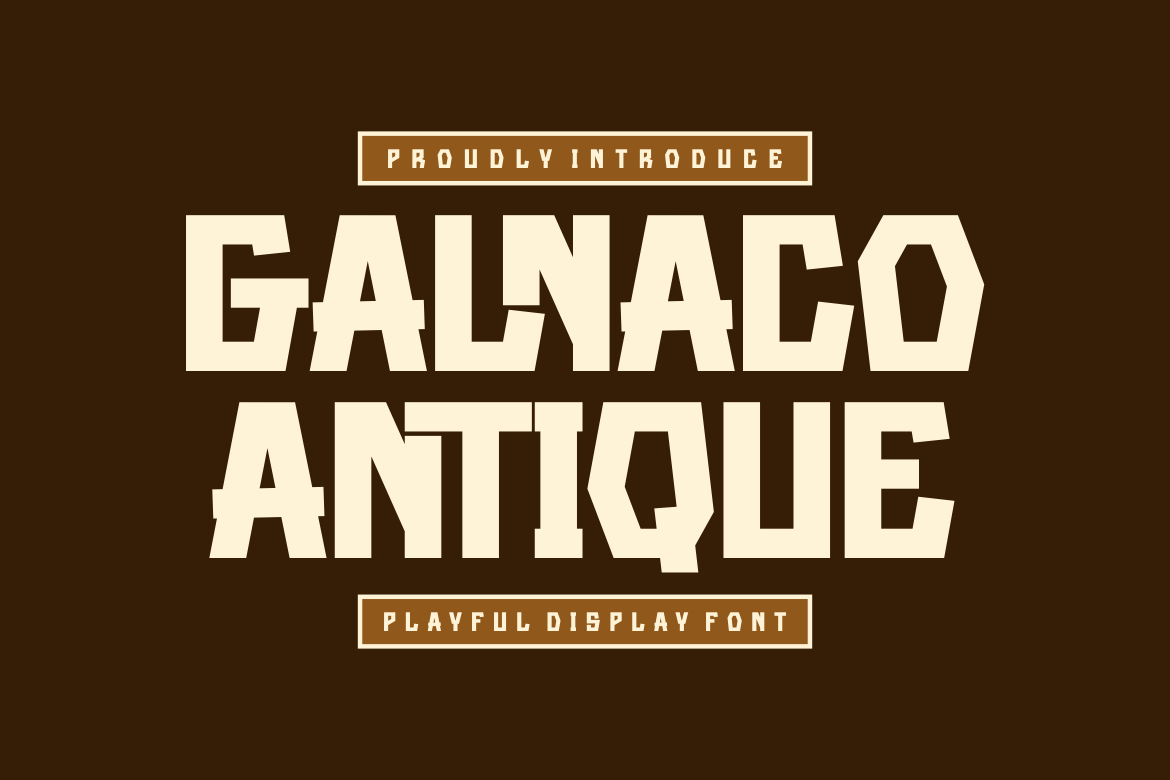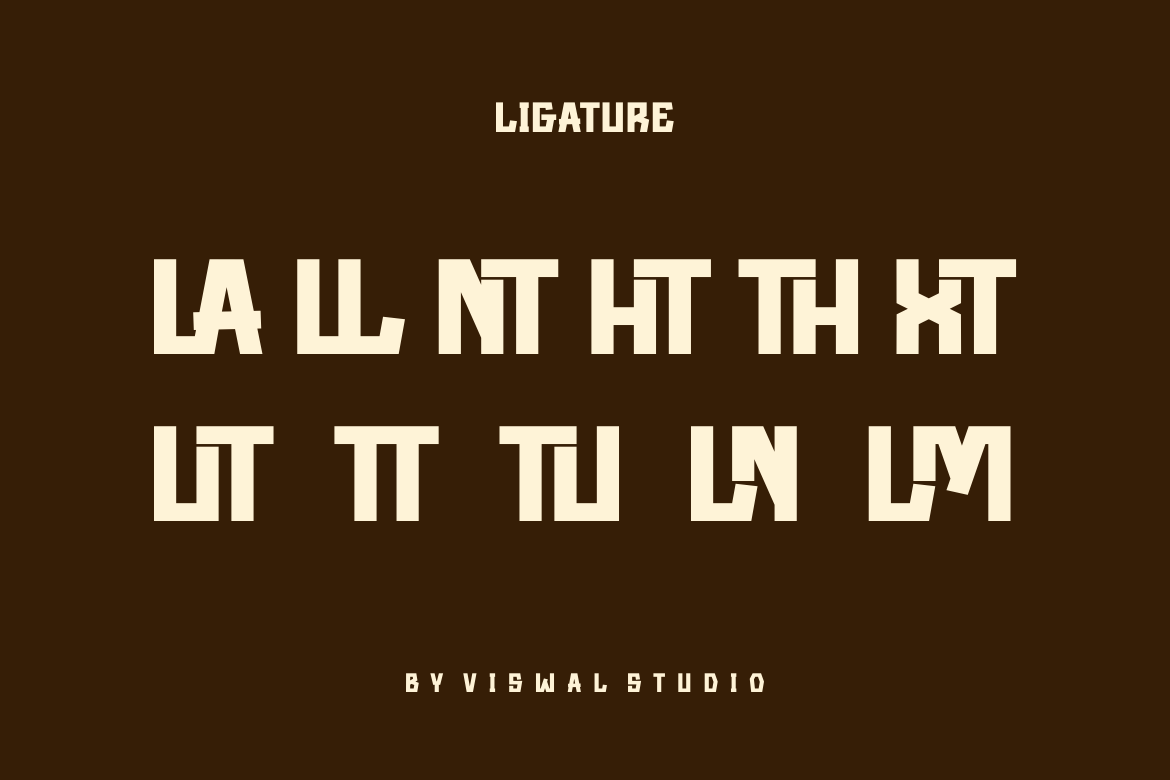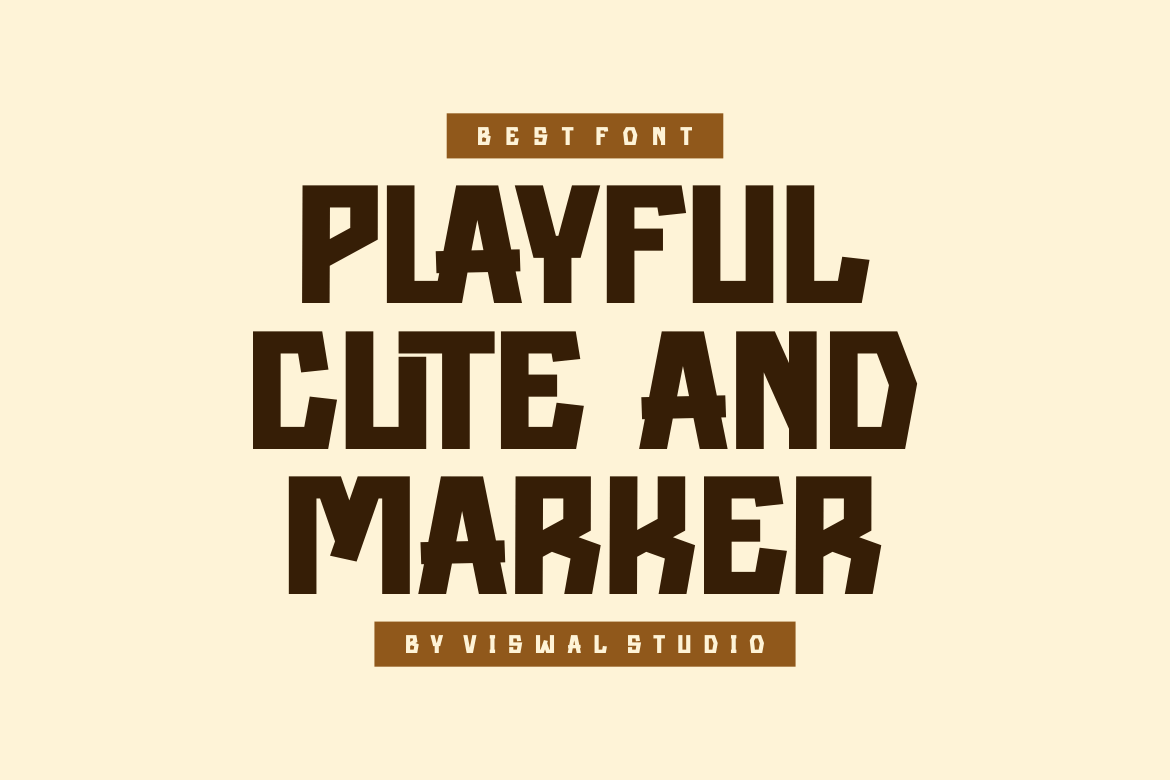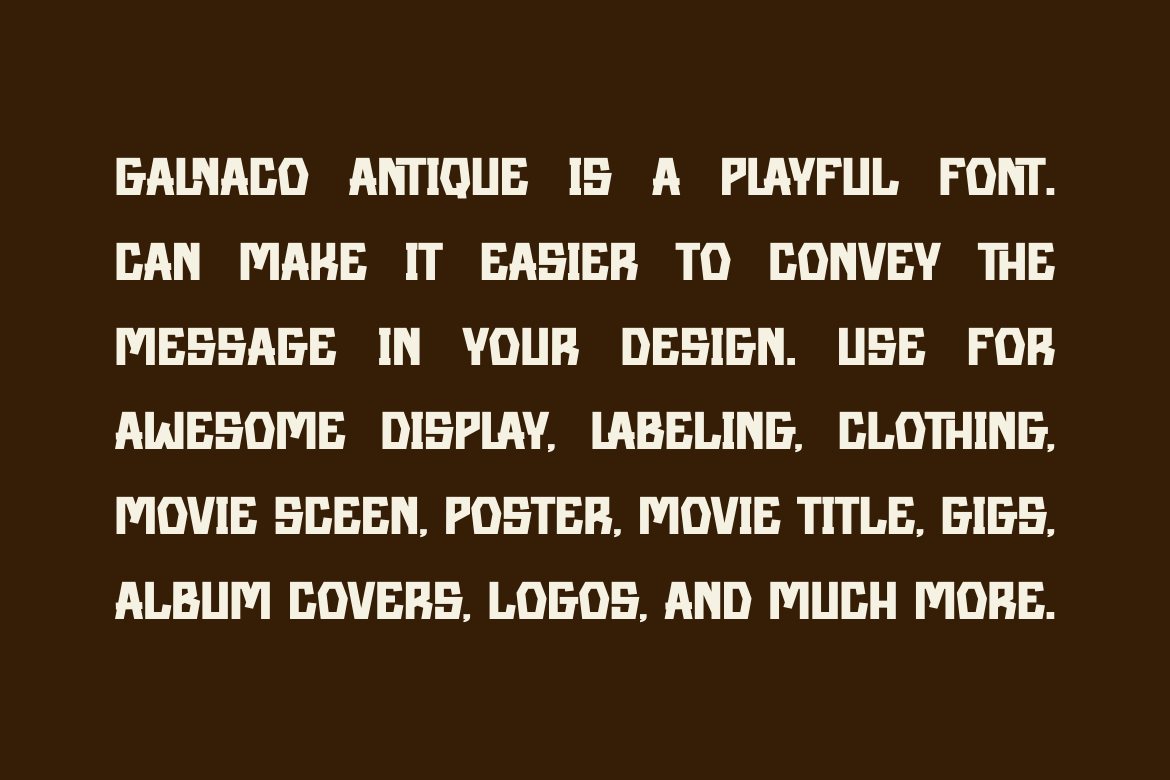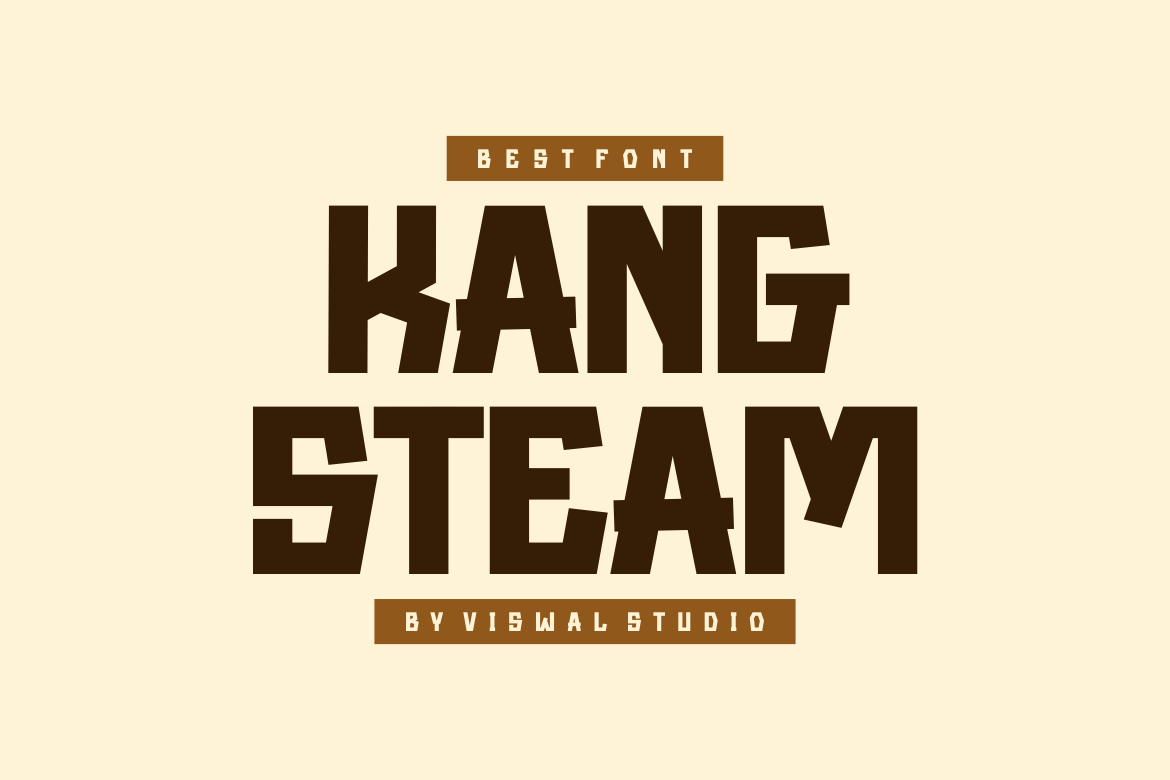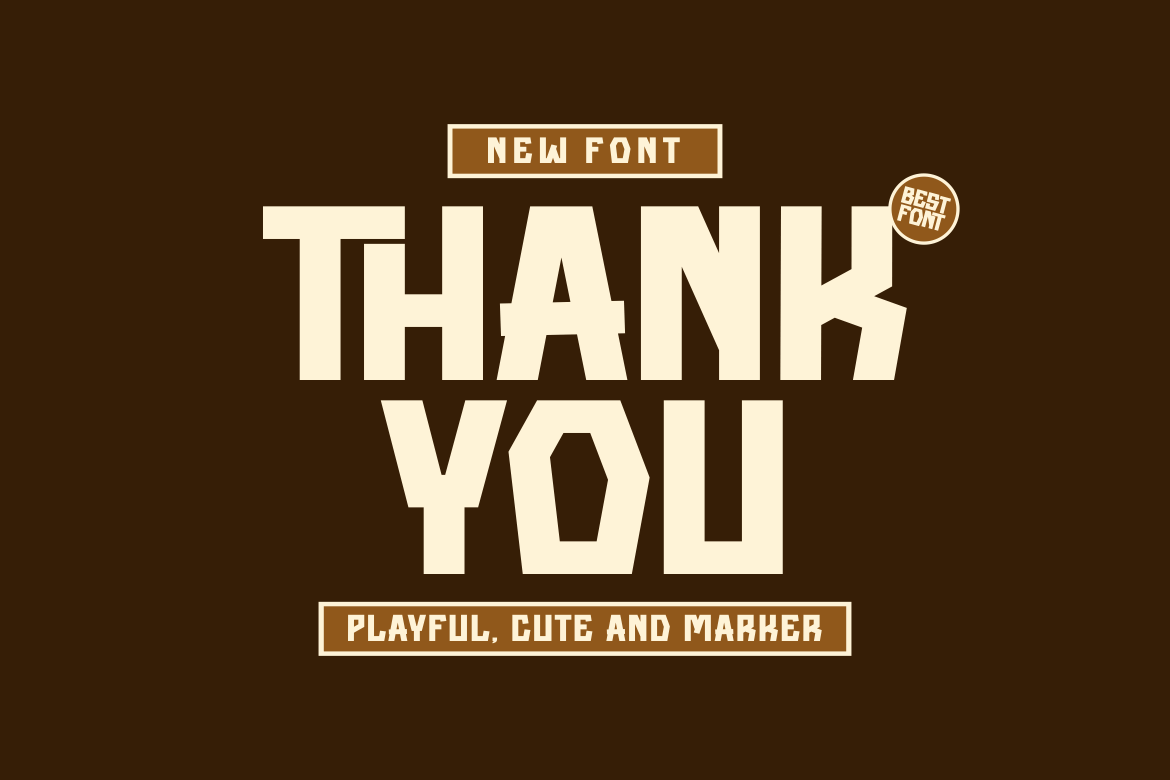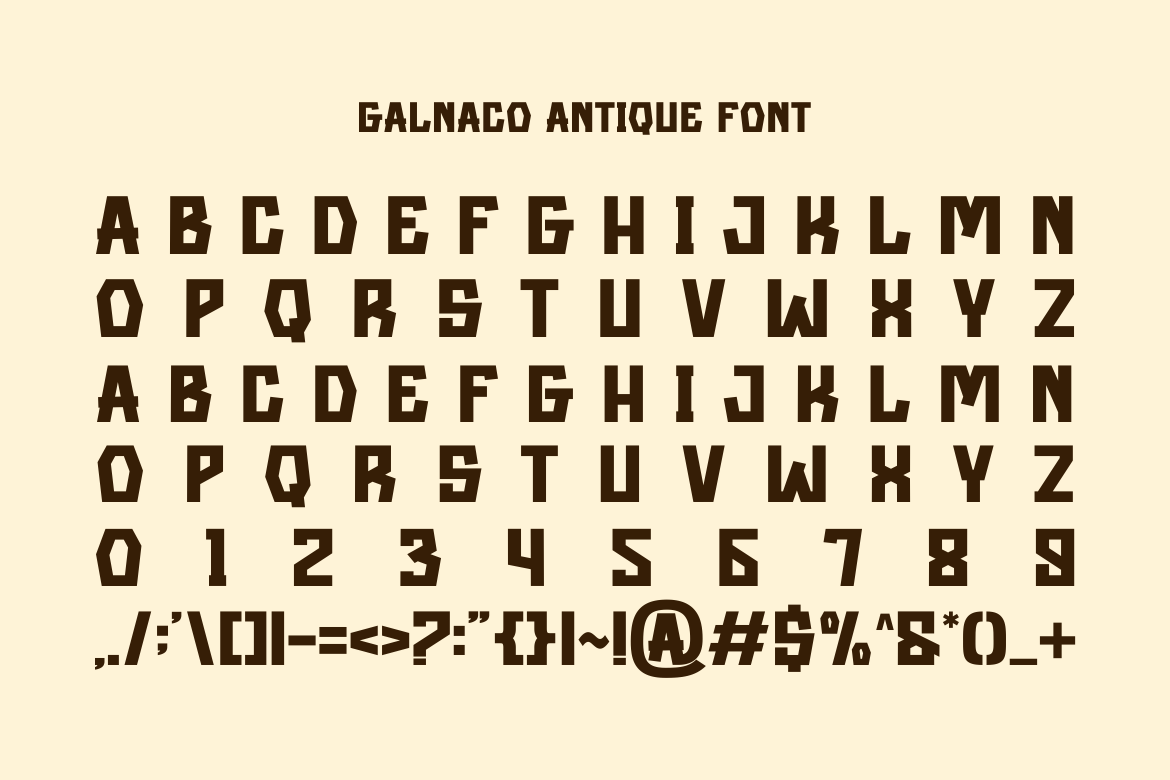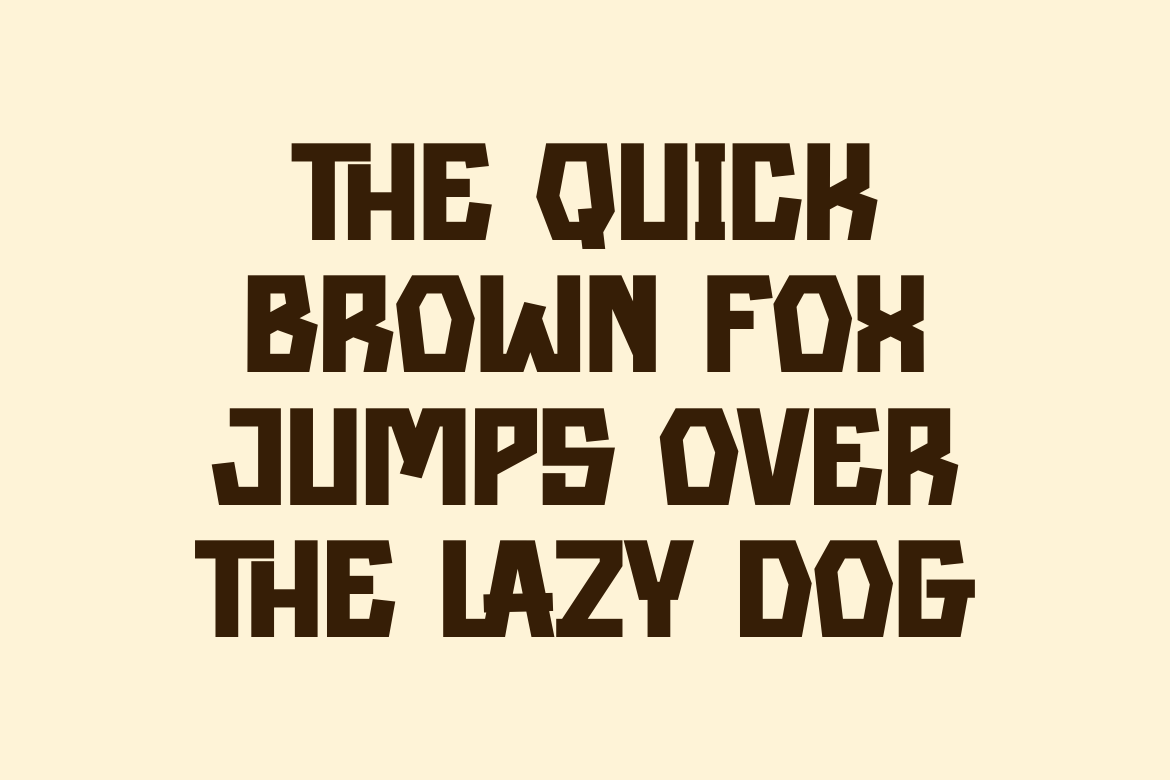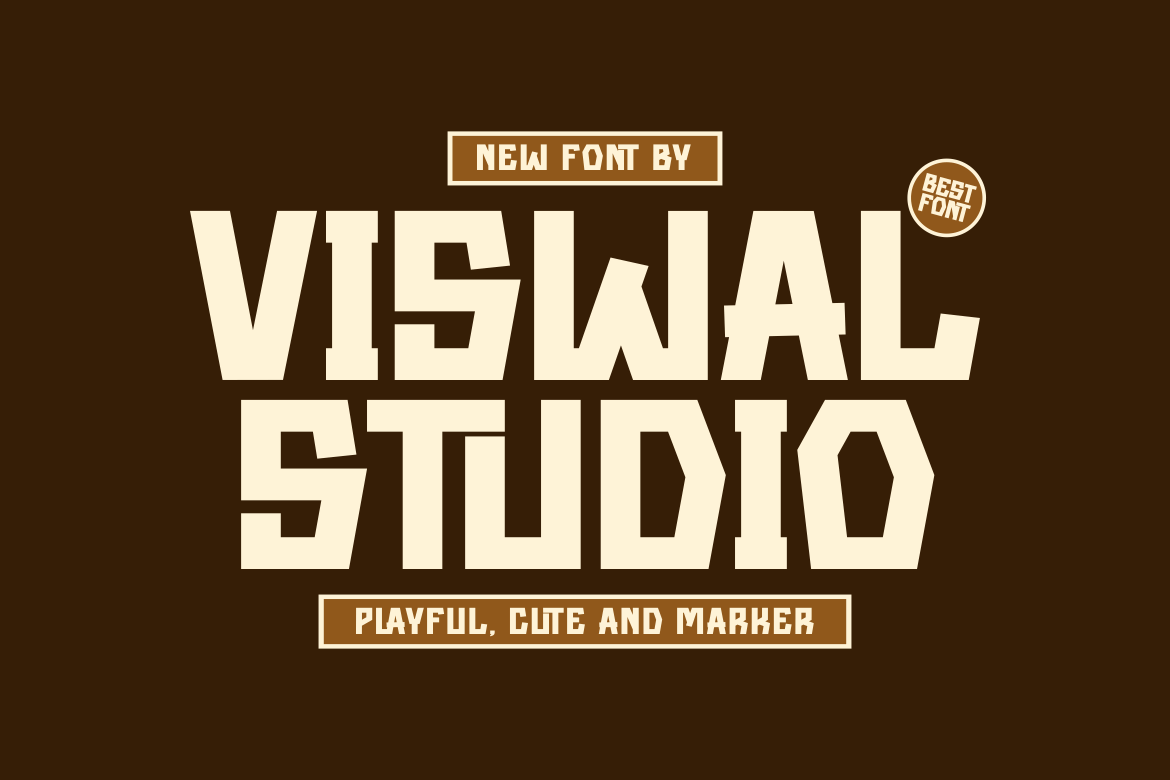
Galnaco Antique – Modern Sans Font
Presenting Galnaco Antique – Font is suitable for badge, labels, logo, branding, magazine, poster and etc. Our fonts have Uppercase & Lowercase, Numeral & Punctuation, Multilingual support and Opentype Features. For Amazing designs you can mix with other fonts as a complement.